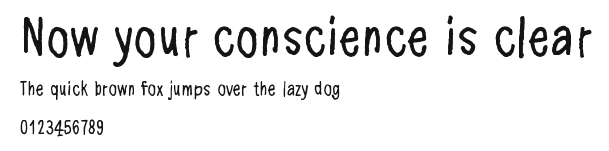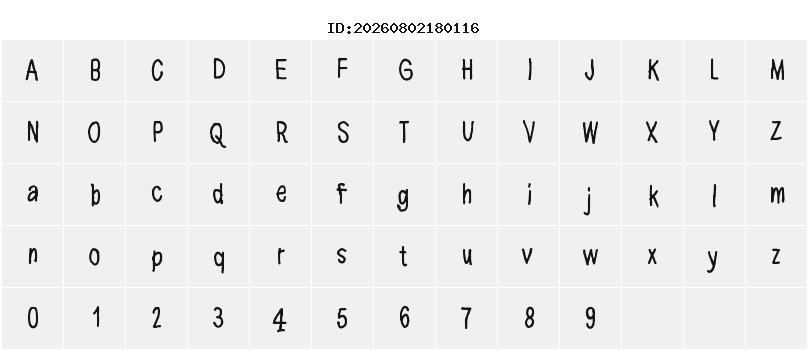
• Font Name: Now your conscience is clear
• Designer: junkohanhero
About Now your conscience is clear.ttf
Now your conscience is clear.ttf is a modern, elegant sans-serif font designed for ultimate readability and visual harmony. Perfect for branding, headlines, web design, and print materials.